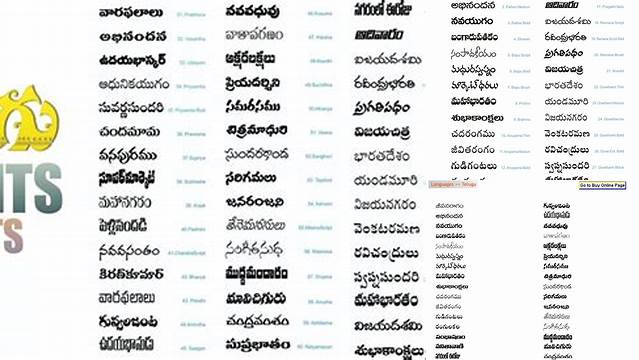
Are you looking for Anu Script Telugu fonts? Well, you've come to the right place! This comprehensive guide will walk you through everything you need to know about these fantastic fonts, where to find them, and how to download them for free. We'll cover the importance of Telugu fonts in digital communication, the unique characteristics of Anu Script, and provide a step-by-step guide to downloading and installing them on your computer. Plus, we'll address some frequently asked questions to ensure you have a smooth and enjoyable experience. So, let’s dive in and get you started with these beautiful fonts! Guys, believe me, once you start using these, you will never look back! It's like discovering a whole new world of typography, especially for Telugu scripts. The elegance and clarity they bring to your documents and designs are simply unmatched. You know, finding the perfect font can be a game-changer, right? It's not just about the letters; it's about the feeling, the mood, the message you want to convey. And when it comes to Telugu, Anu Script fonts truly stand out for their readability and aesthetic appeal. Whether you're working on a professional project, designing a personal invitation, or just want your documents to look polished, these fonts are a fantastic choice. So stick with me, and let’s explore the world of Anu Script Telugu fonts together! You'll be amazed at the difference they can make. We'll make sure you get the best fonts and avoid any sketchy downloads. Let's get started, shall we? Trust me; you are going to love this! And hey, if you run into any issues along the way, don't worry – we've got you covered with a detailed troubleshooting section. We'll tackle everything from installation hiccups to compatibility concerns. We want to make sure you have a seamless experience from start to finish. And remember, it's not just about downloading fonts; it's about unlocking a world of creative possibilities. With the right fonts, your words can truly come to life. So let’s get those fonts downloaded and start creating something amazing! I am so excited for you guys!
Why Telugu Fonts Matter in Digital Communication
In today's digital age, where communication is predominantly online, the choice of font plays a crucial role in conveying messages effectively. For Telugu speakers, using the correct Telugu font is essential for readability and maintaining the authenticity of the language. Telugu fonts ensure that the script is displayed accurately across different devices and platforms. Imagine writing an important document or designing a website in Telugu, only to find that the text appears distorted or unreadable on someone else's screen. That's where having the right font comes in. It's about making sure your message is not only seen but also understood, clearly and correctly. Think of it like this: fonts are the voice of your text. They add personality, tone, and clarity to your words. And when you're communicating in Telugu, you want that voice to be as authentic and clear as possible. This is not just about aesthetics, although that's certainly a factor too. It's about ensuring that the content is accessible and engaging for your audience. If the font is difficult to read or doesn't display properly, people are less likely to engage with your content, no matter how great it is. So, selecting the right Telugu font is a critical step in effective digital communication. It's about respecting the language, honoring its beauty, and making sure your message resonates with your audience. And that's why Anu Script is such a valuable resource for Telugu speakers. It offers a range of fonts that are not only visually appealing but also highly functional, ensuring that your message is delivered with clarity and impact. Plus, the availability of these fonts for free makes them even more accessible to everyone, regardless of their budget or technical expertise. So, let's celebrate the beauty of Telugu and the power of fonts to bring our words to life in the digital world! You know, it's funny how something as seemingly small as a font can have such a big impact, right? But it really does make a world of difference. And with Anu Script, you can be confident that your Telugu text will always look its best. It's really important to consider the nuances of different fonts and their impact. It's like choosing the right outfit for an occasion – you want it to be appropriate, stylish, and comfortable. And that's exactly what Anu Script fonts offer for Telugu text: a perfect blend of aesthetics and functionality. So, let's embrace the beauty of Telugu fonts and make our digital communication shine!
What Makes Anu Script Telugu Fonts Unique?
Anu Script Telugu fonts stand out due to their unique design and high readability. These fonts are specifically crafted to maintain the traditional Telugu script's elegance while ensuring clarity on digital screens. The beauty of Anu Script lies in its attention to detail. Each character is meticulously designed to reflect the rich heritage of the Telugu script, while also being optimized for modern digital use. This means that the fonts are not only visually appealing but also incredibly easy to read, whether you're viewing them on a computer screen, a mobile device, or even in print. One of the key features that sets Anu Script apart is its versatility. It offers a range of font styles, from classic and traditional to more contemporary and stylized, allowing you to choose the perfect font for any project. Whether you're writing a formal document, designing a creative advertisement, or simply sending an email to a friend, Anu Script has a font that will suit your needs. The fonts are also designed to be highly compatible with various software applications and operating systems, ensuring that you can use them seamlessly across different platforms. This is a huge advantage, as it eliminates the frustration of dealing with font compatibility issues. You can simply download the fonts, install them on your system, and start using them right away, without worrying about whether they will display correctly. But perhaps the most appealing aspect of Anu Script is its commitment to preserving the authenticity of the Telugu script. The designers of these fonts have a deep understanding and appreciation for the nuances of the language, and they have gone to great lengths to ensure that their fonts accurately reflect the traditional forms and structures of Telugu characters. This makes Anu Script an ideal choice for anyone who wants to communicate in Telugu with clarity, elegance, and respect for the language's heritage. Guys, you know how important it is to have fonts that really speak to the essence of a language, right? It's not just about the shape of the letters; it's about the soul they carry. And Anu Script fonts truly capture the soul of Telugu. They're like a bridge between the traditional beauty of the script and the modern world of digital communication. Trust me, once you start using them, you'll feel the difference. It's like your words suddenly have more weight, more presence, more impact. So, let's celebrate the uniqueness of Anu Script and its ability to bring the beauty of Telugu to life in the digital realm!